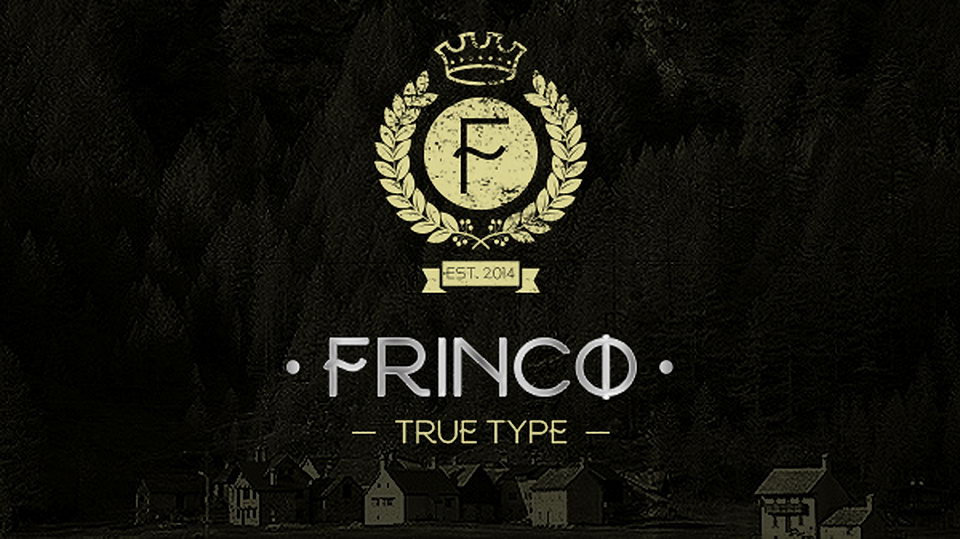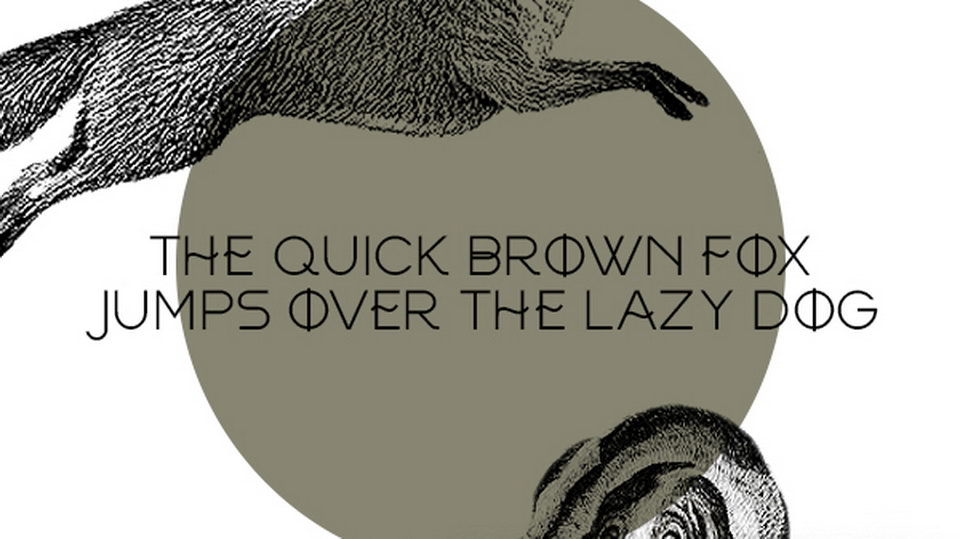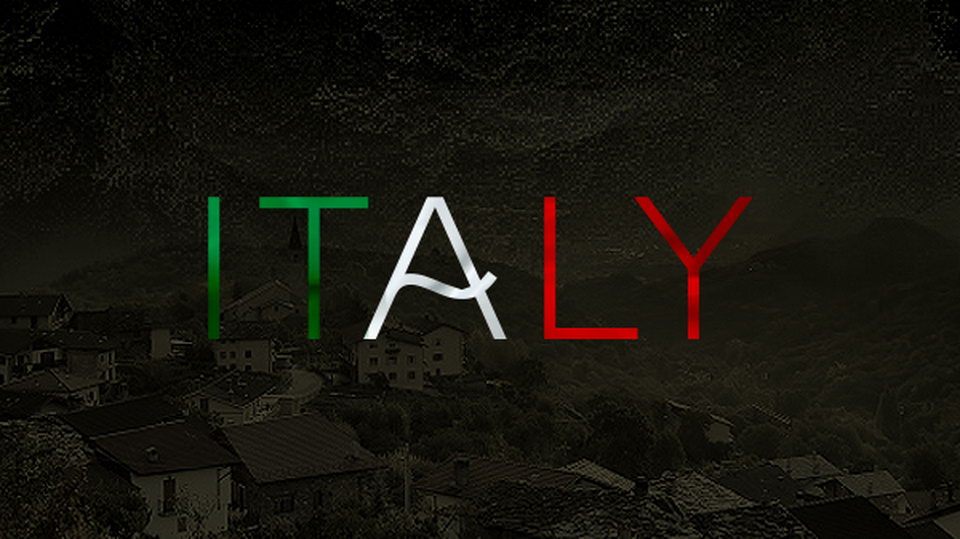
Frinco is a simple yet elegant display font with geometric shapes and soft curves. It comes with all caps letters, numbers and symbols.
Frinco font is great for logos, headlines, branding, covers, social media and more.